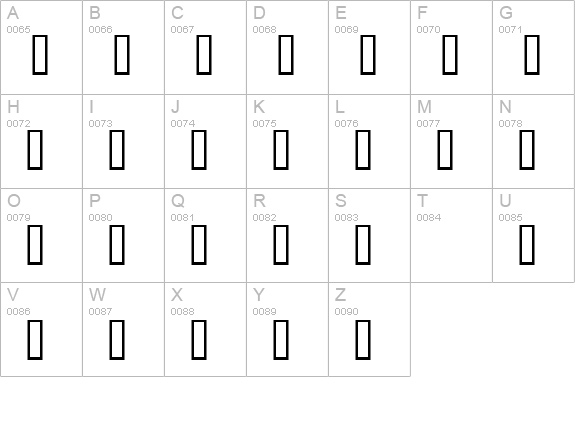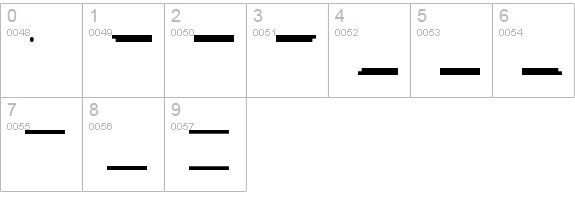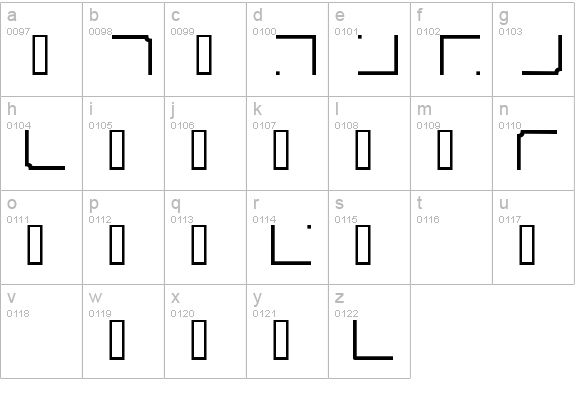
EOPframekid Font Details
EOPframekid font is a whimsical and playful typeface perfect for adding a touch of charm to your designs. This unique font features a fun and quirky frame-like design that is sure to stand out. EOPframekid is versatile and can be used for a variety of projects such as posters, invitations, logos, and more. Best of all, EOPframekid font is available for free download at FontsMarket.com. This means you can easily add this delightful font to your collection without any cost. Don't miss out on the opportunity to enhance your designs with the whimsical charm of EOPframekid font. Download it today and let your creativity shine!